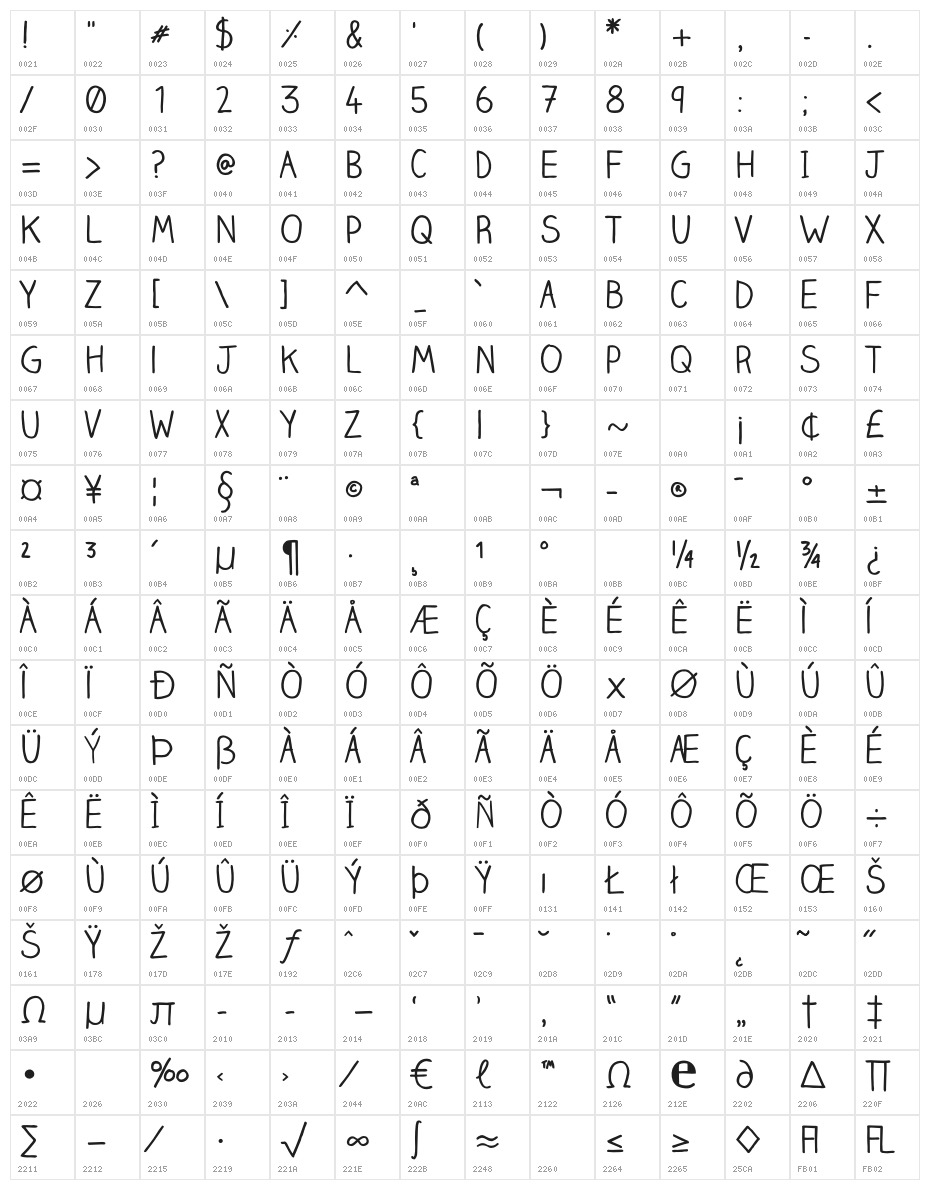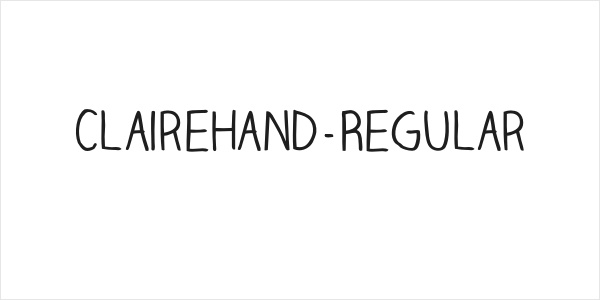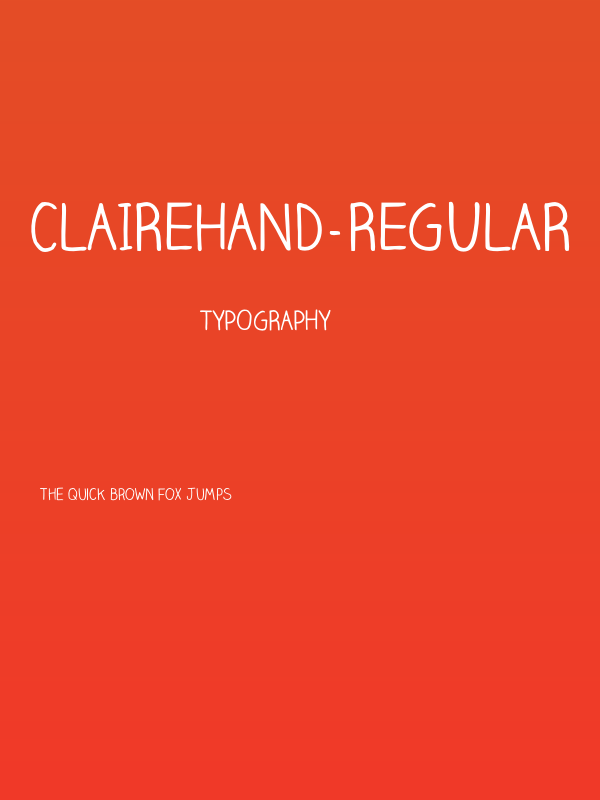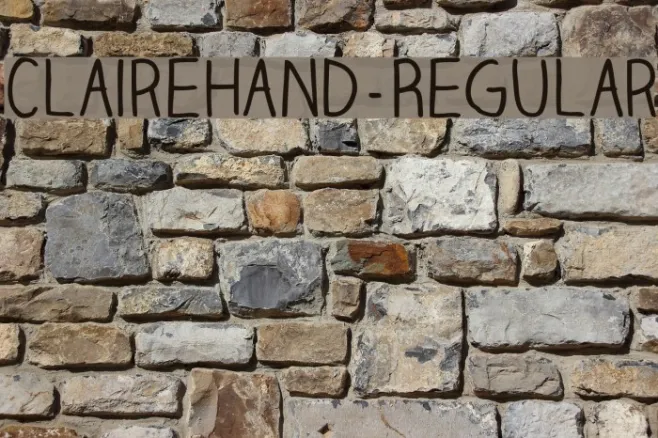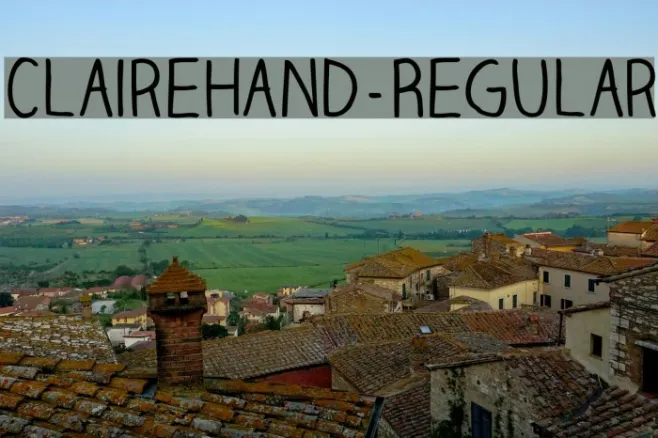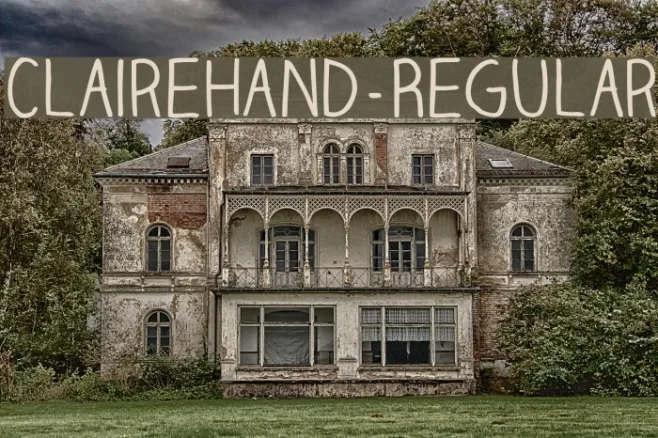
ClaireHand-Regular Font
ClaireHand-Regular Description
This font features a playful, handwritten style that exudes a casual and friendly vibe. The characters are slightly irregular, mimicking the natural flow of handwriting, which adds a personal touch to any text. The strokes are consistent in width, providing a uniform appearance while maintaining a relaxed feel. The letters are well-spaced, ensuring readability even in longer texts. This font is ideal for projects that require a personal, approachable aesthetic, such as invitations, greeting cards, or children's books.
| Use Case | Headlines, Informal text, Personal projects |
| Proposed Projects | Invitations, greeting cards, children's books, personal notes, and casual branding. |